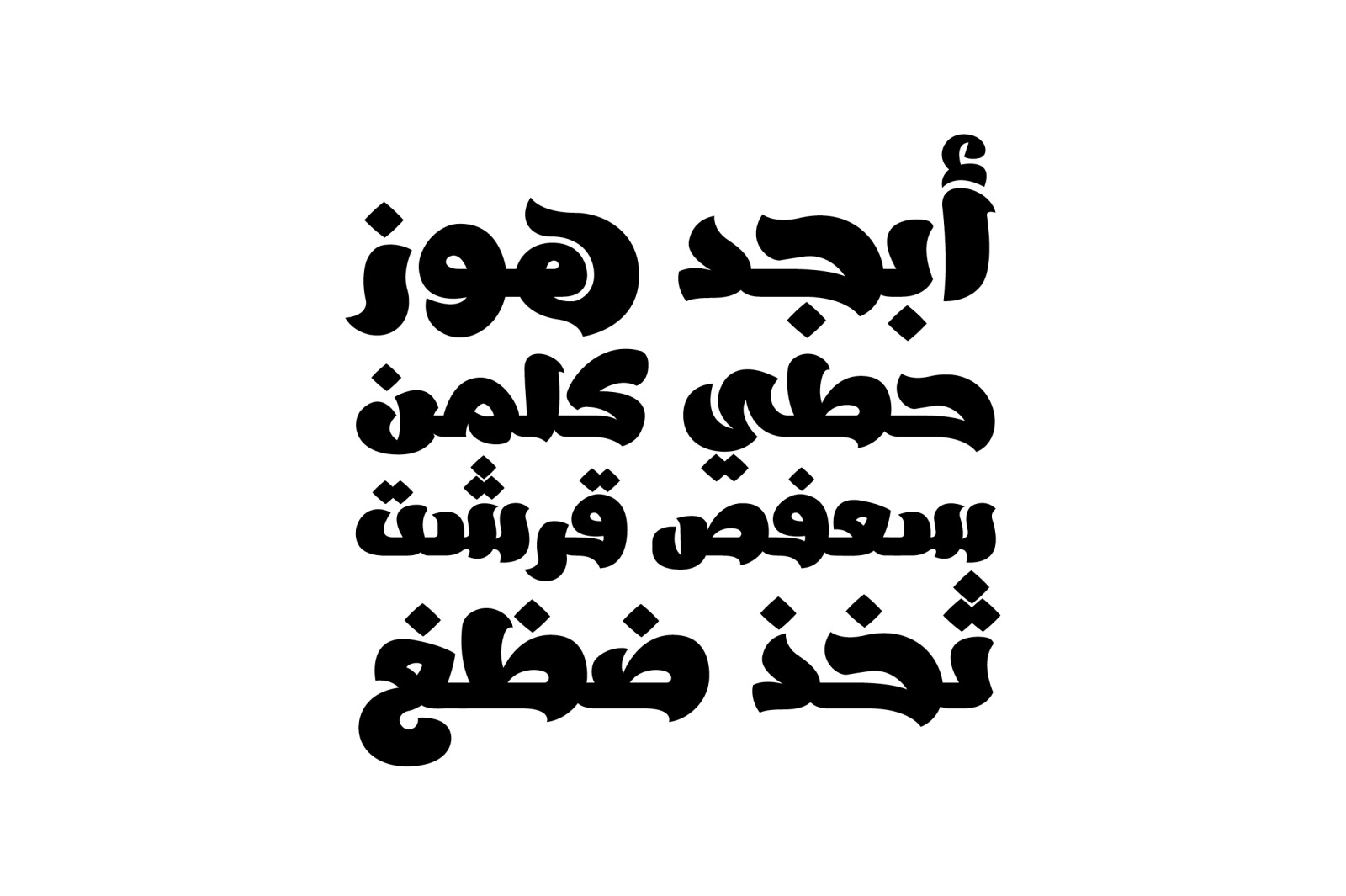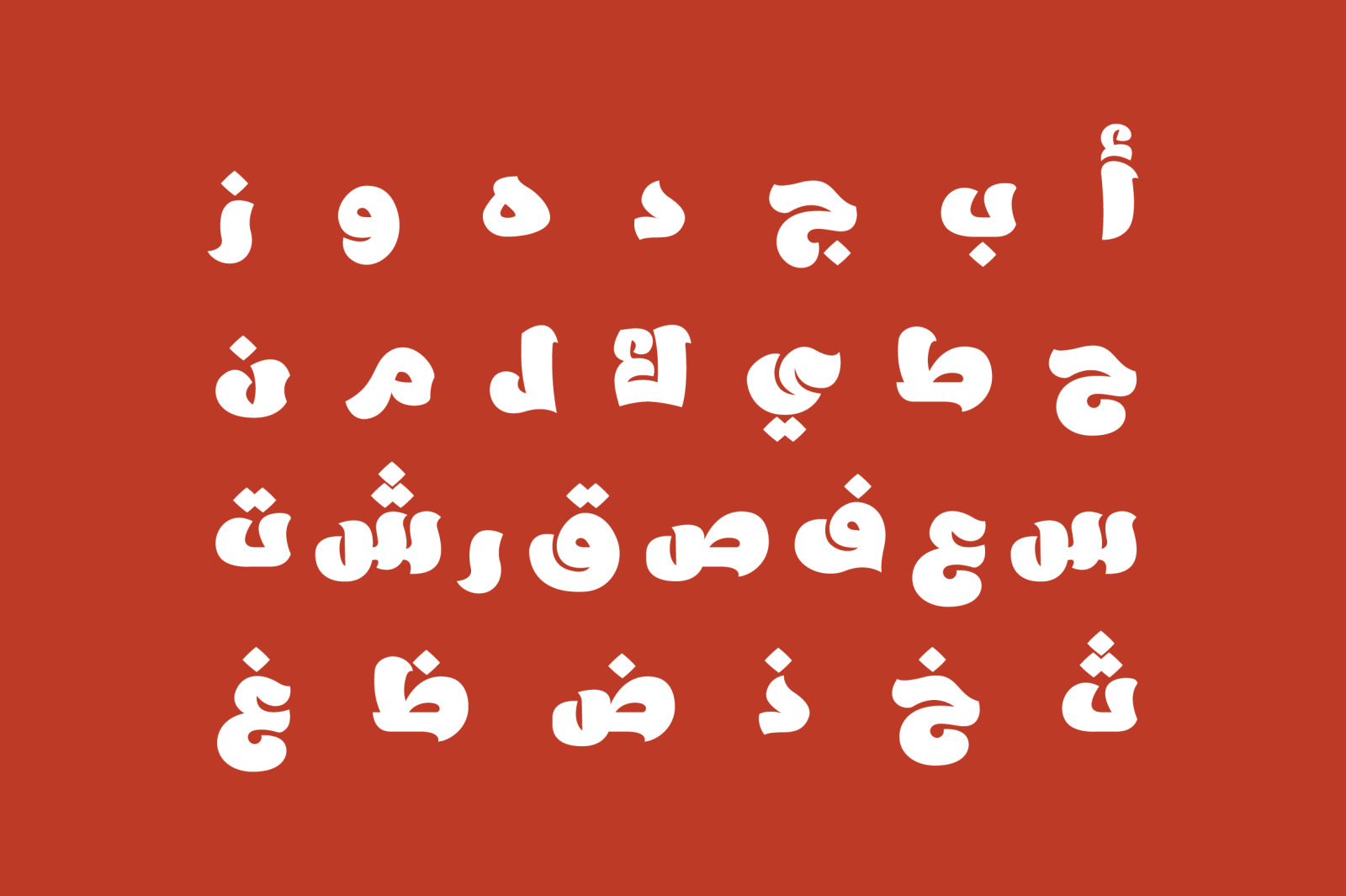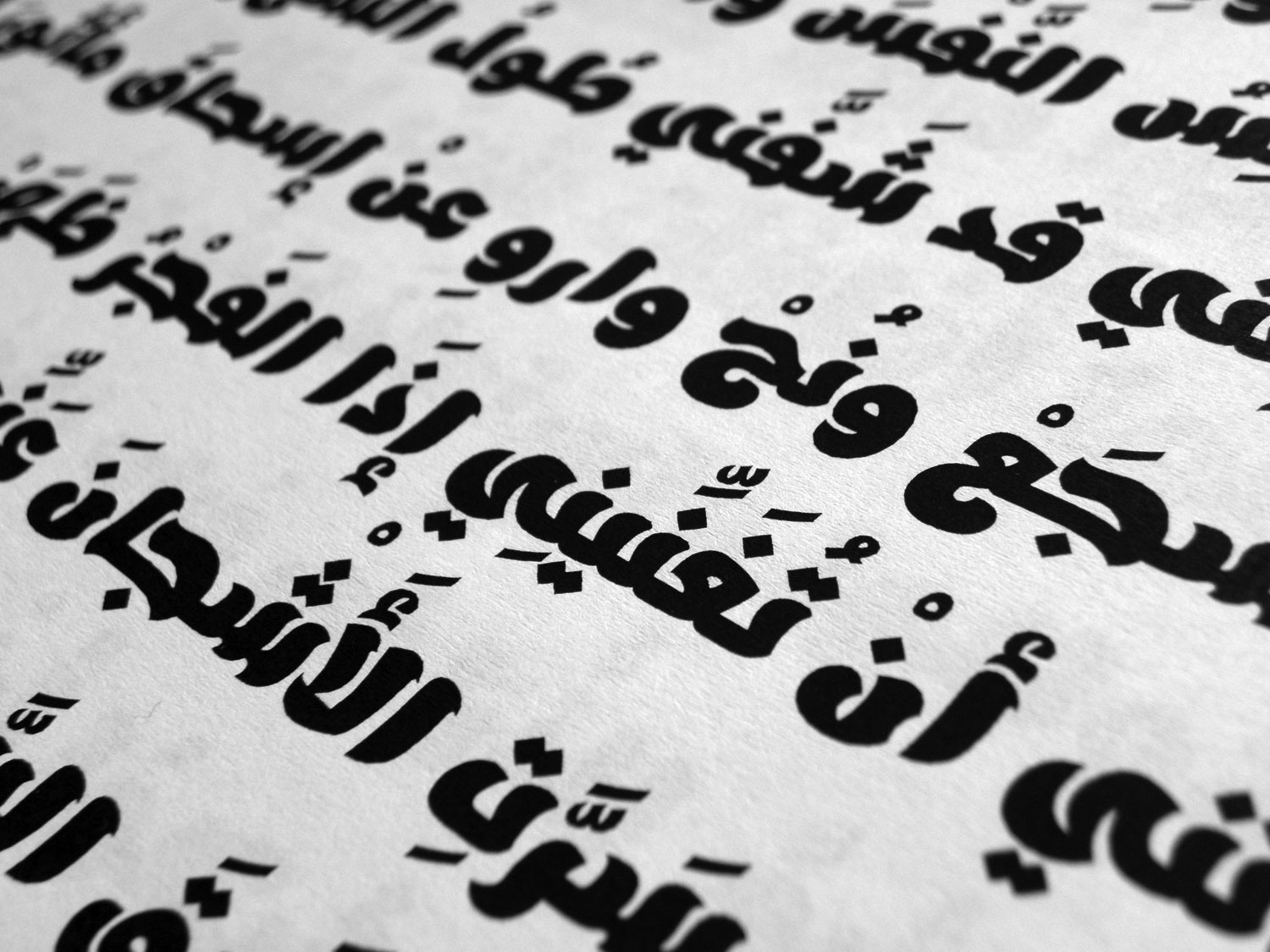
Ebhaar - Arabic Font
The word ‘Ebhaar’ is the Arabic for 'Dazzle'. Ebhaar is an Arabic display font with a dazzling style that captures the beauty of brush-pen lettering and fuses it with the traditional features of Arabic calligraphy. The font suits both heading and casual titling and it supports Arabic, Urdu and Persian Language. Ebhaar supports Windows, Mac OS and mobile applications.